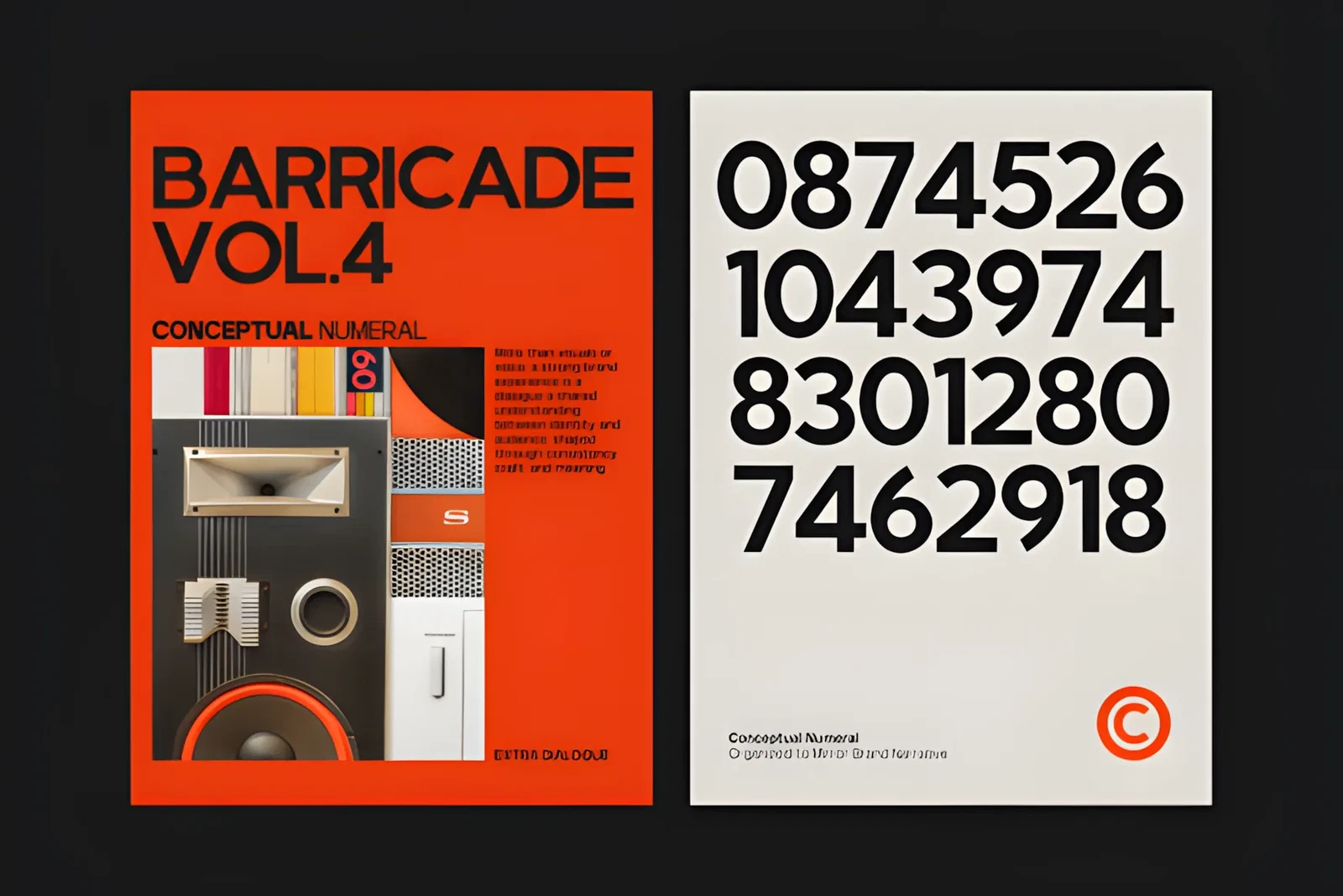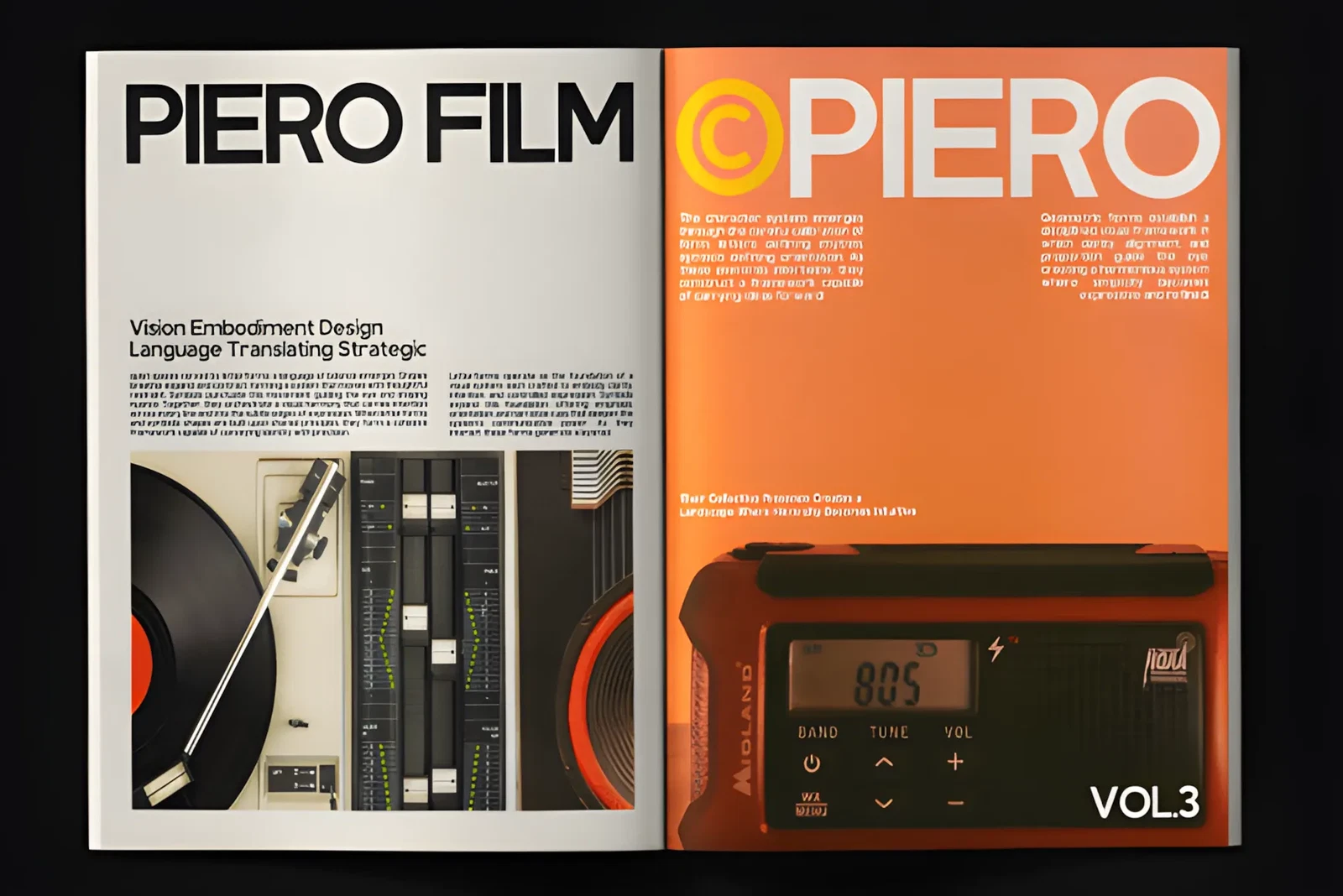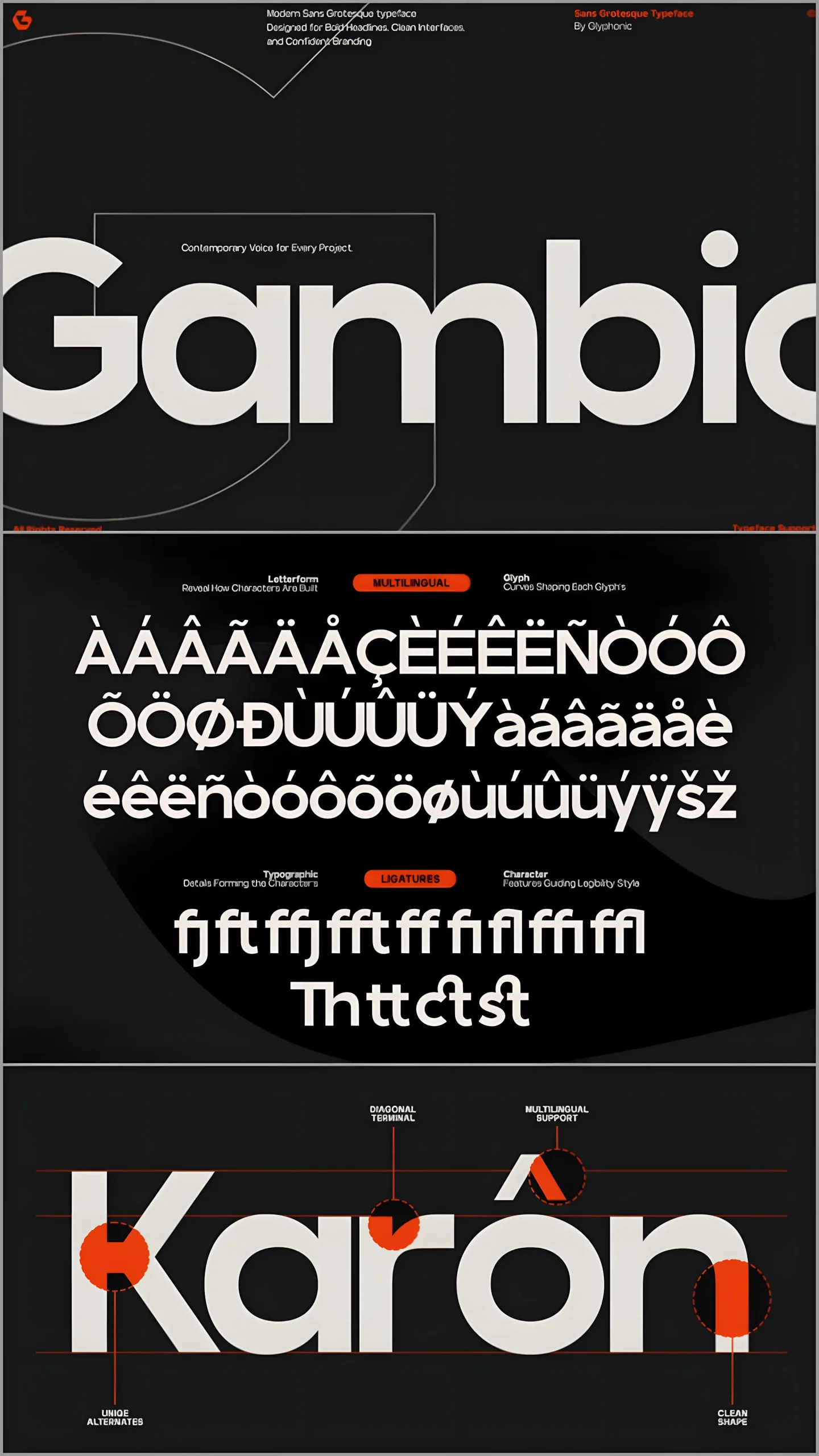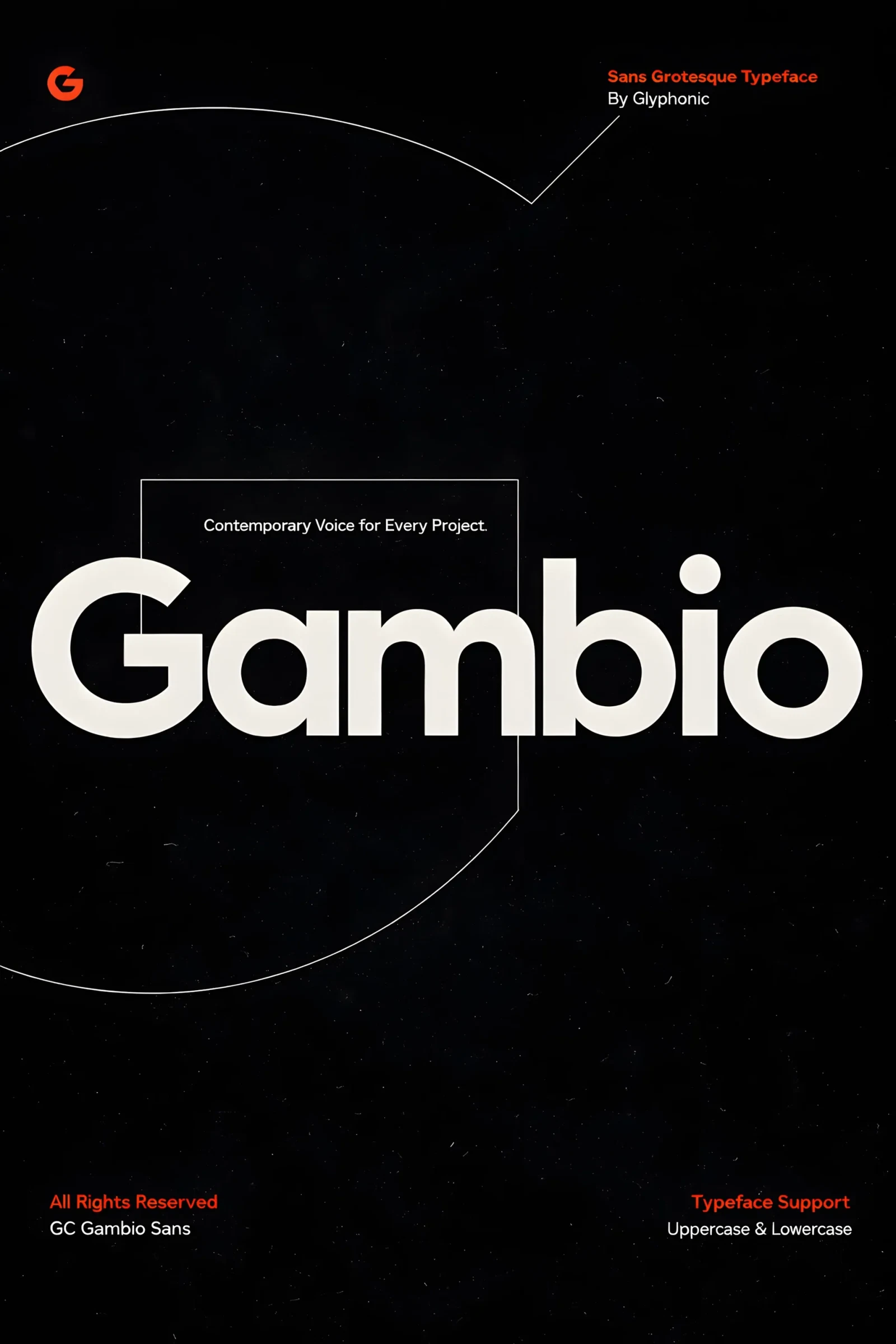
In modern design, typography often needs to disappear before it can truly work. GC Gambio Font is built exactly for that purpose. It is a modern sans-grotesque typeface designed to deliver clarity, neutrality, and visual balance across branding, editorial, and digital projects.
Rather than trying to stand out through decorative features, GC Gambio focuses on function, readability, and consistency. It supports content quietly and professionally, making it a reliable choice for designers who value clean communication.
A Neutral Typeface With Professional Precision
GC Gambio is inspired by classic grotesque principles, refined for contemporary use. Its letterforms are carefully proportioned, creating a visual tone that feels neutral yet confident.
This neutrality makes the font especially versatile. It does not impose a strong personality, which allows brands, layouts, and messages to define the character instead of the typography.
The result is a font that feels trustworthy, modern, and adaptable across industries.
Visual Structure and Typographic Balance
The font is built around simplicity and balance. Stroke weights are even, spacing is controlled, and character shapes are optimized for clarity. This makes GC Gambio highly readable in both small and large text sizes.
Key visual qualities include:
- clean grotesk-style letterforms
- balanced spacing for smooth reading
- consistent rhythm across text blocks
- professional, minimal appearance
The font performs equally well in headlines, body text, and interface elements.
Designed for Practical Design Work
GC Gambio is intentionally not a font family or variable font. This design choice simplifies workflow and integration, making it easier to use without managing multiple styles or complex settings.
Because of this, the font works especially well for:
- fast-paced design projects
- branding systems that require consistency
- layouts where clarity is more important than variation
It delivers reliability without unnecessary complexity.
Ideal Use Cases Across Design Fields
Branding and Logo Design
GC Gambio works well for branding projects that need a clean and professional look. It fits naturally into:
- corporate identities
- startup branding
- minimal logos
- business communication systems
Its neutrality helps logos feel modern and timeless rather than trendy.
Editorial and Layout Design
In editorial contexts, the font provides structure and order. It works well for:
- magazines and reports
- brochures and presentations
- posters and printed materials
Text remains readable and visually calm, even in dense layouts.
Web and UI Design
GC Gambio is optimized for digital use. Its balanced spacing ensures legibility on screens, making it suitable for:
- websites and landing pages
- user interfaces
- dashboards and digital products
The font supports numbers, punctuation, and multilingual characters, making it suitable for international projects.
Because of its clean and timeless design, GC Gambio remains useful across multiple projects without feeling outdated.
Why Grotesk Sans-Serif Fonts Endure
Grotesk sans-serif fonts continue to be widely used because they prioritize clarity and neutrality. GC Gambio fits perfectly into this tradition, offering a modern interpretation that works across both print and digital environments.
Its strength lies in restraint — allowing content to lead while typography provides structure and support.
Who GC Gambio Font Is Best For
GC Gambio is especially well suited for:
- graphic designers
- branding and identity specialists
- UI and UX designers
- editorial designers
- anyone seeking a clean, functional sans-serif font
It works equally well for digital-first products and print-based design.
Final Perspective
GC Gambio Font is a tool for clarity. Its modern grotesk structure, neutral tone, and professional balance make it a dependable foundation for contemporary design projects.
For designers who need typography that communicates without distraction, GC Gambio offers a clean, functional solution that supports strong visual communication across platforms and mediums.